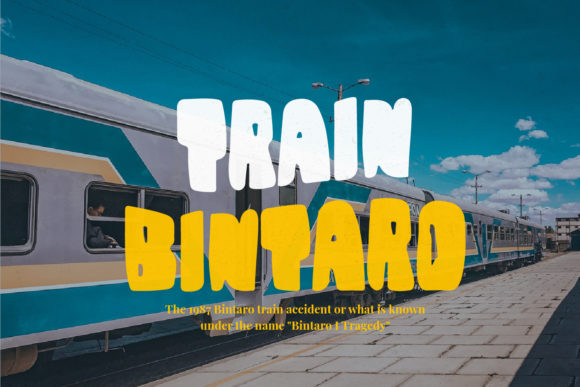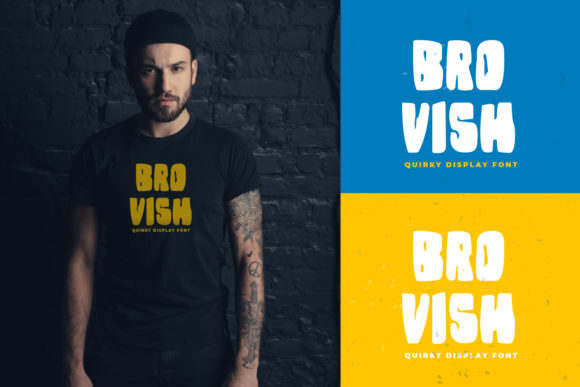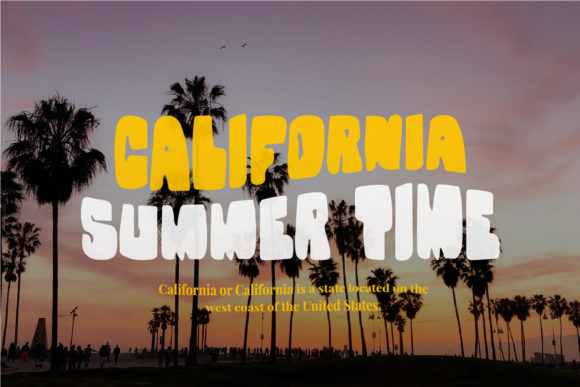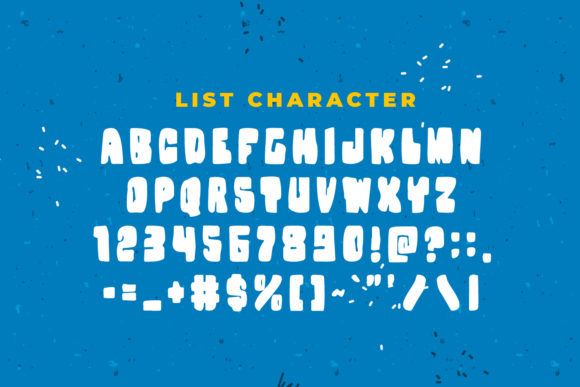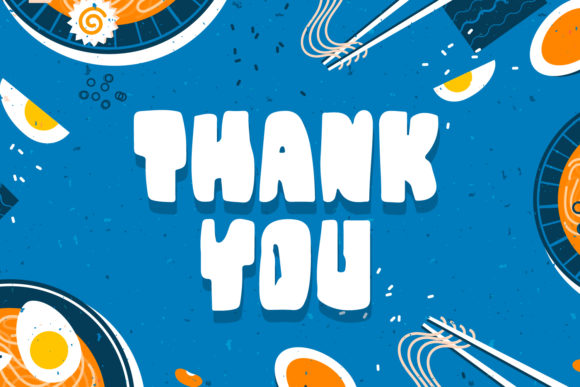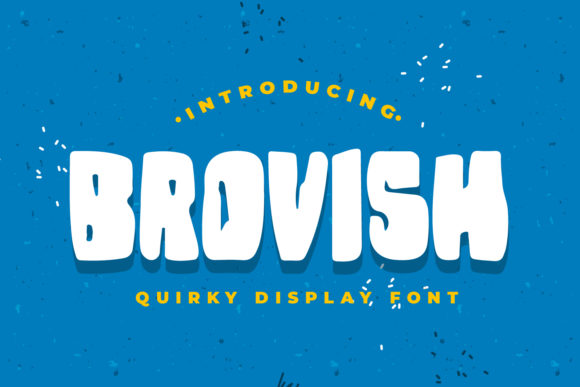
Brovish Font: The Perfect Choice for Playful and Creative Projects
Are you a designer, crafter, or educator looking for a font that embodies playfulness and authenticity? Look no further than Brovish Font! This cute and thick lettered display font is perfect for any children activity or school project that requires a fun and engaging touch.
What is Brovish Font?
Brovish Font is a unique and charming display font that is designed to capture the attention of young audiences. Its thick and bold letters make it easy to read and recognize, while its playful and irregular shape adds a touch of whimsy and creativity. Whether you’re working on a children’s book, a school project, or a craft activity, Brovish Font is the perfect choice to add a dash of fun and personality.
Characteristics of Brovish Font
So, what makes Brovish Font so special? Here are some of its key characteristics:
- Thick and bold letters: Brovish Font features thick and bold letters that are easy to read and recognize, making it perfect for young audiences.
- Playful and irregular shape: The font’s playful and irregular shape adds a touch of whimsy and creativity to any project.
- Cute and charming: Brovish Font is designed to be cute and charming, making it perfect for children’s activities and school projects.
- Highly legible: Despite its playful design, Brovish Font is highly legible, making it easy to read and understand.
Uses of Brovish Font
Brovish Font is a versatile font that can be used in a variety of creative projects, including:
- Children’s books and activities: Brovish Font is perfect for children’s books, activity sheets, and workbooks.
- School projects: The font is ideal for school projects, presentations, and posters.
- Crafting and DIY projects: Brovish Font can be used in crafting and DIY projects, such as making cards, gift tags, and other paper crafts.
- Digital media: The font can also be used in digital media, such as videos, animations, and social media graphics.
Tips for Using Brovish Font
Here are some tips for using Brovish Font effectively:
- Use it in large sizes: Brovish Font is designed to be used in large sizes, so make sure to use it in headings, titles, and other prominent text.
- Pair it with other fonts: Brovish Font can be paired with other fonts to create a unique and interesting contrast.
- Experiment with colors: The font looks great in bright and bold colors, so don’t be afraid to experiment with different color schemes.
| Font Name | Brovish Font |
In conclusion, Brovish Font is a unique and charming display font that is perfect for any children activity or school project. Its thick and bold letters, playful and irregular shape, and cute and charming design make it a great choice for designers, crafters, and educators. With its versatility and legibility, Brovish Font is sure to become a favorite font in your collection.